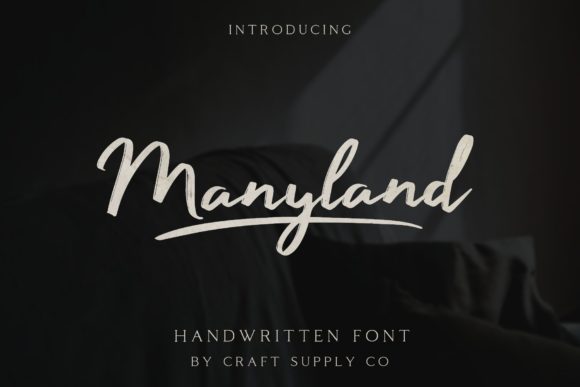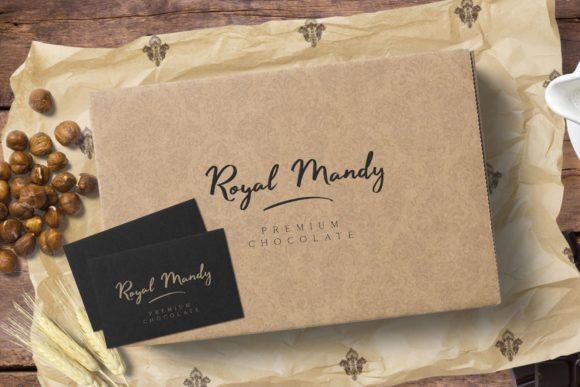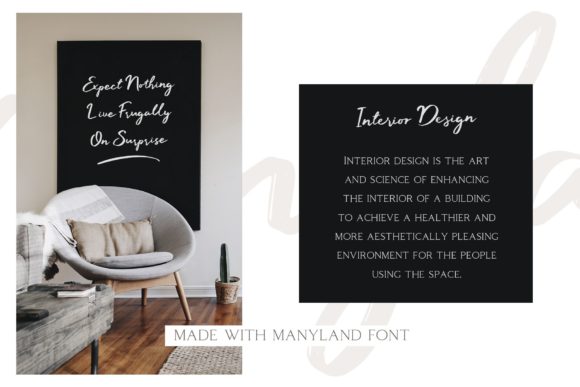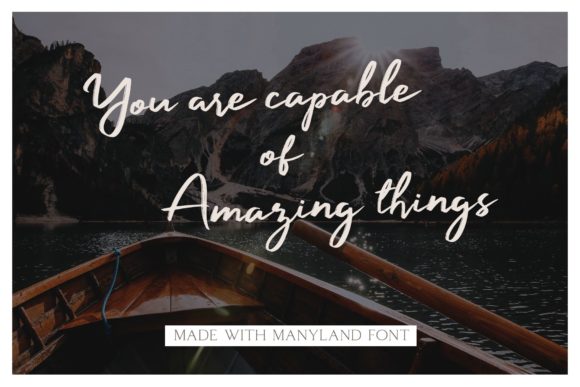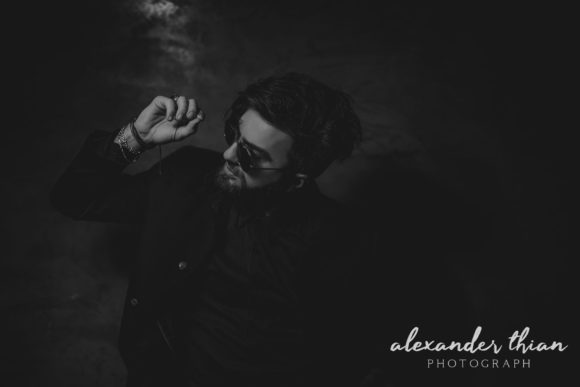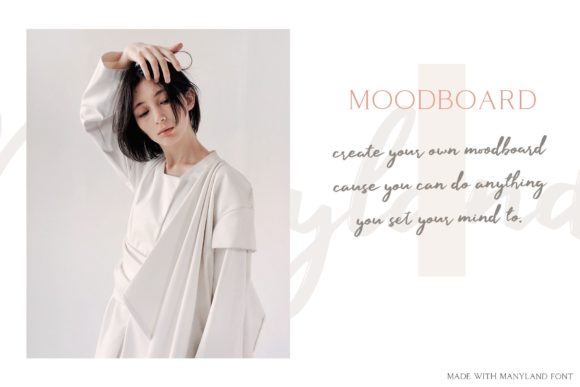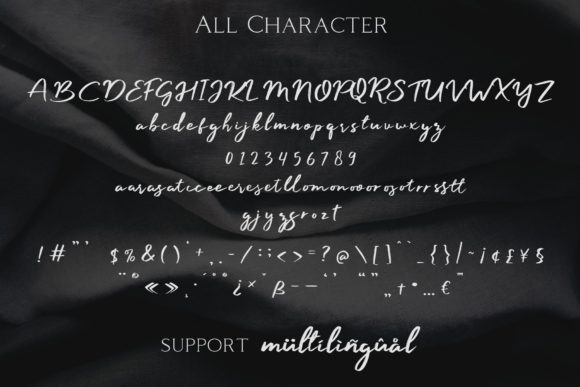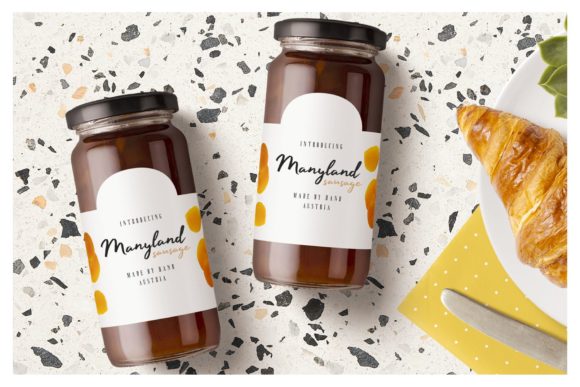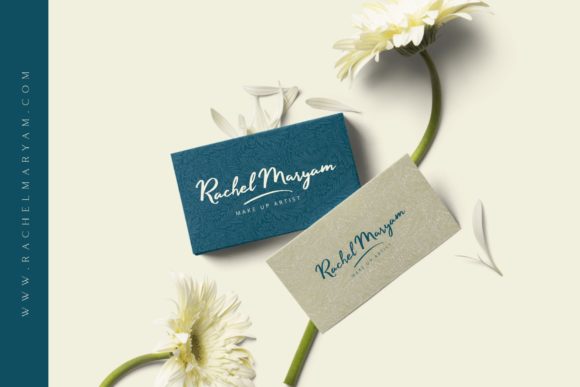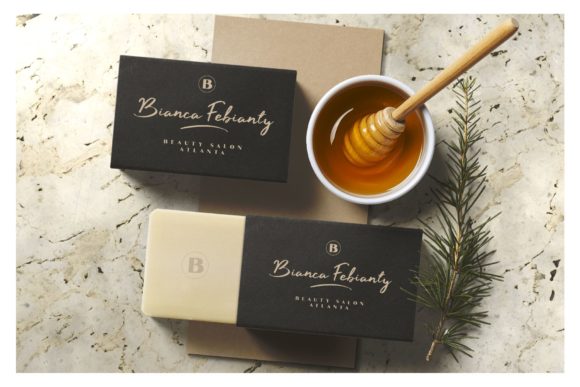
Manyland Font
The Manyland is a handwritten, free-flowing, monoline font. Its style exploits the common letter-to-letter transitions of the typical cursive hand by utilizing style points controlled within the machinations of OpenType Contextual Alternates.
It can be used to create almost all types of design projects. Just use your imagination and your project will become more alive and look great than ever!